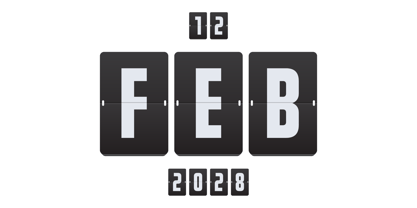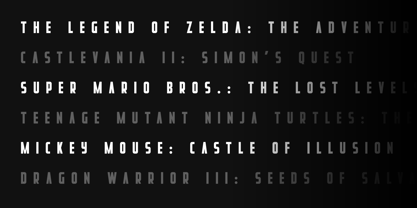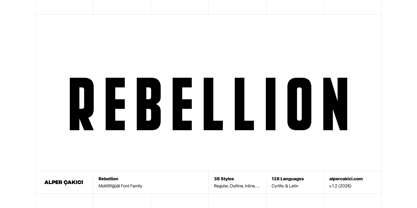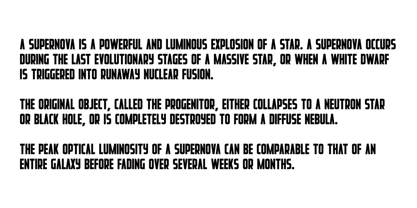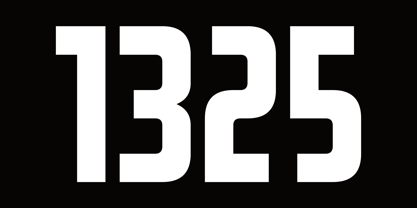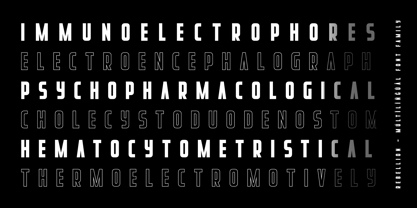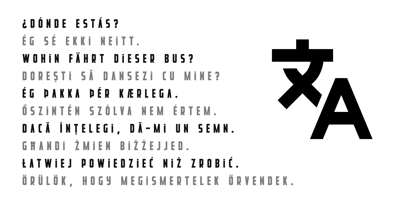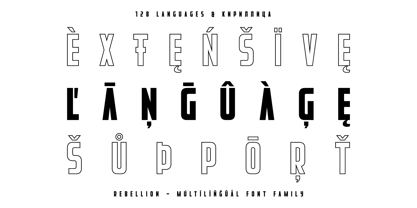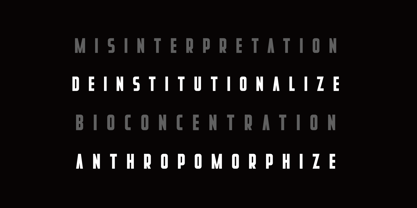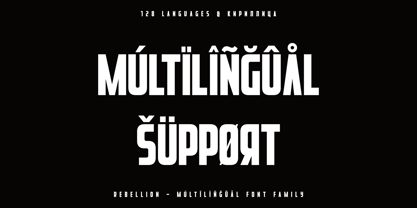
Rebellion
by AlperCakici
The Rebellion Font Family was designed by Alper Çakıcı and published by AlperCakici. Rebellion contains 38 styles and family package options. More about this family
Meet Rebellion, a forward-thinking type family built for designers who want strong character, flexibility, and a futuristic edge. Inspired by stencil construction and engineered geometry, Rebellion blends sharp technical forms with expressive textures to create a powerful, cohesive type system. With 38 handcrafted styles, Rebellion moves effortlessly from clean and precise to rough, eroded, brush-driven, and modular aesthetics. Whether you’re designing cinematic sci-fi titles, cutting-edge tech branding, gaming interfaces, or bold display typography, Rebellion gives you the freedom to explore multiple moods within one unified visual language. Perfect for: Branding • Sci-Fi Titles • UI/UX • Apps • Posters • Gaming • Motion Graphics • Packaging • Tech Logos • Display Typography
Designers: Alper Çakıcı
Foundry: AlperCakici